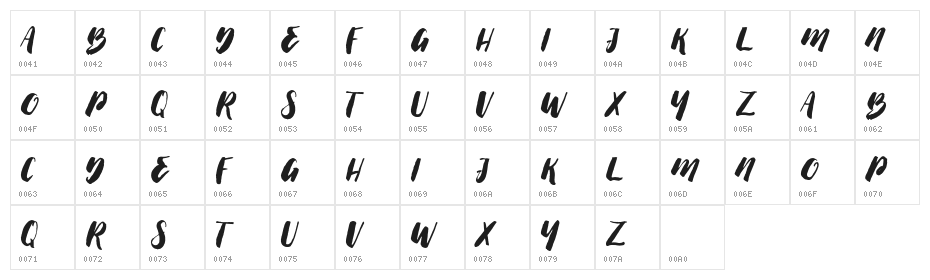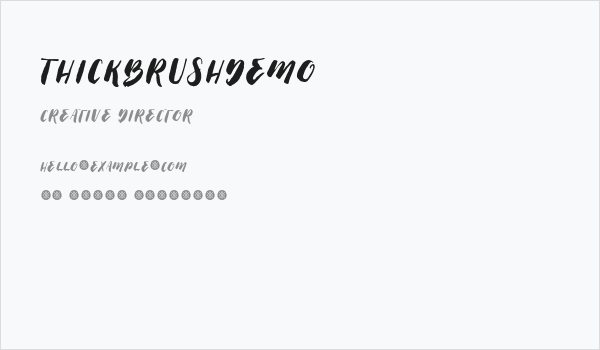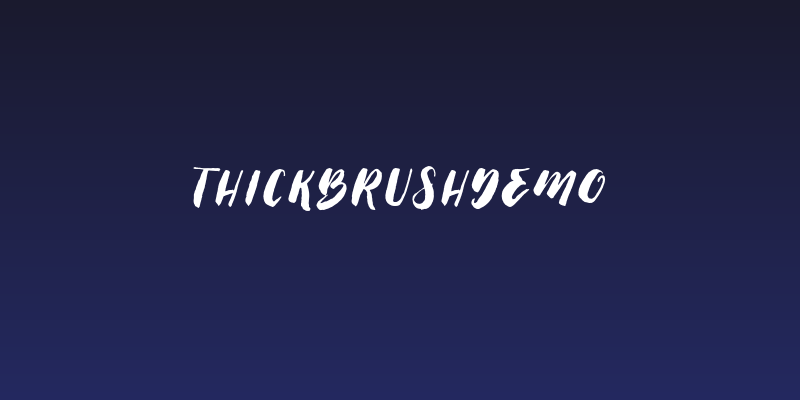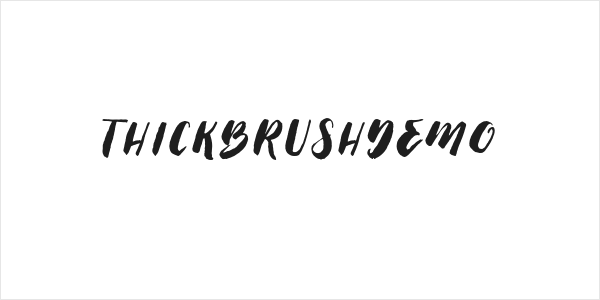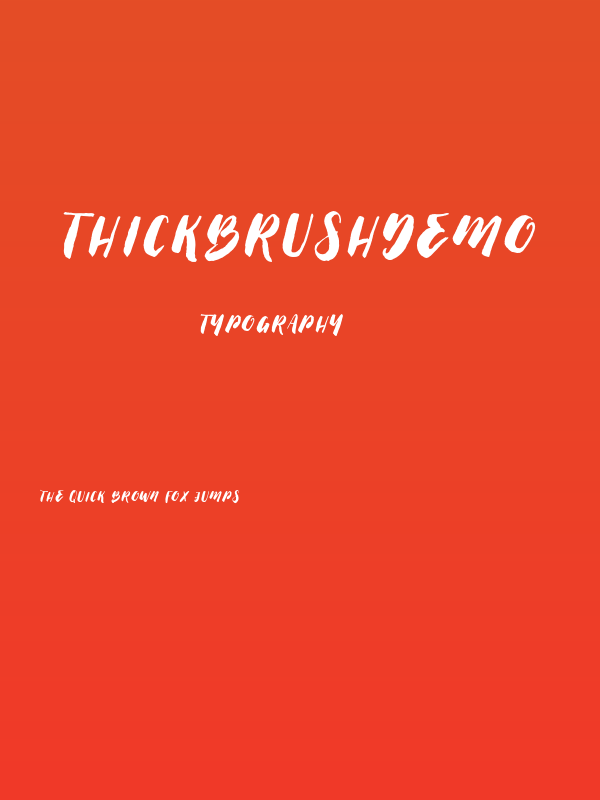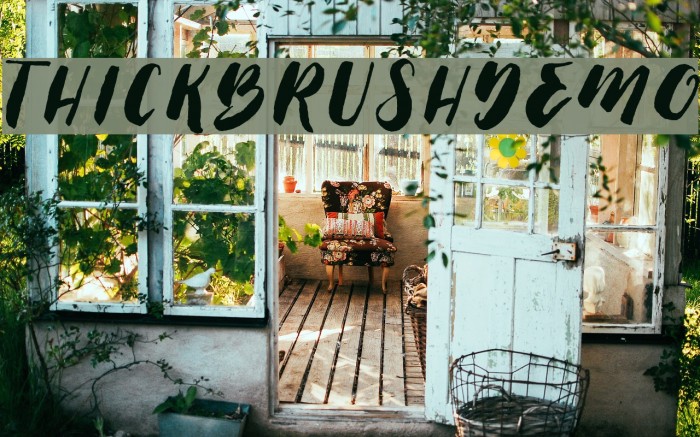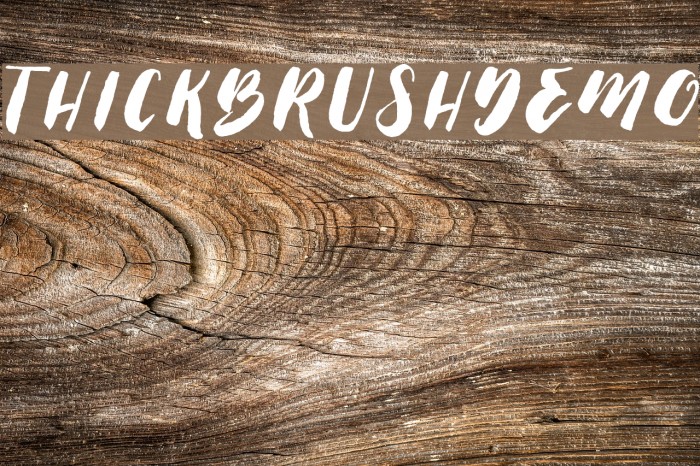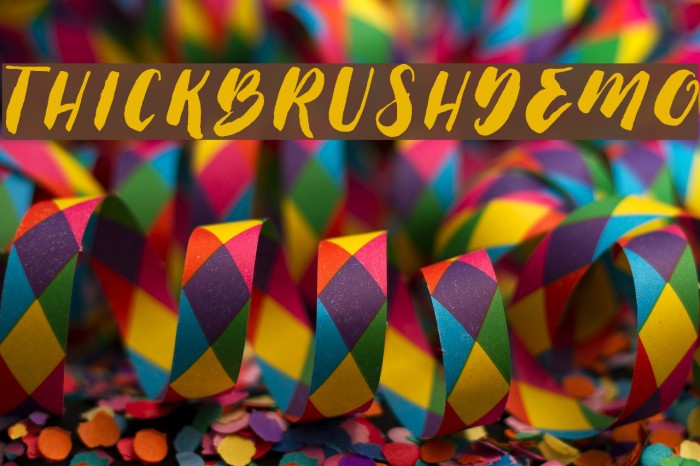
ThickBrushDemo Font
ThickBrushDemo Description
This font features bold, expressive strokes that mimic the appearance of brush lettering. The characters are designed with a dynamic flow, showcasing thick and thin variations that add a sense of movement and energy. The uppercase and lowercase letters maintain a consistent style, with rounded edges and a slightly slanted orientation, giving it a casual yet artistic feel. The numbers and special characters are equally bold, ensuring uniformity across all glyphs. This font is ideal for projects that require a personal touch, such as invitations, posters, or branding materials that aim to convey creativity and individuality.
| Proposed Projects | Ideal for invitations, posters, branding materials, and any creative projects needing a personal touch. |